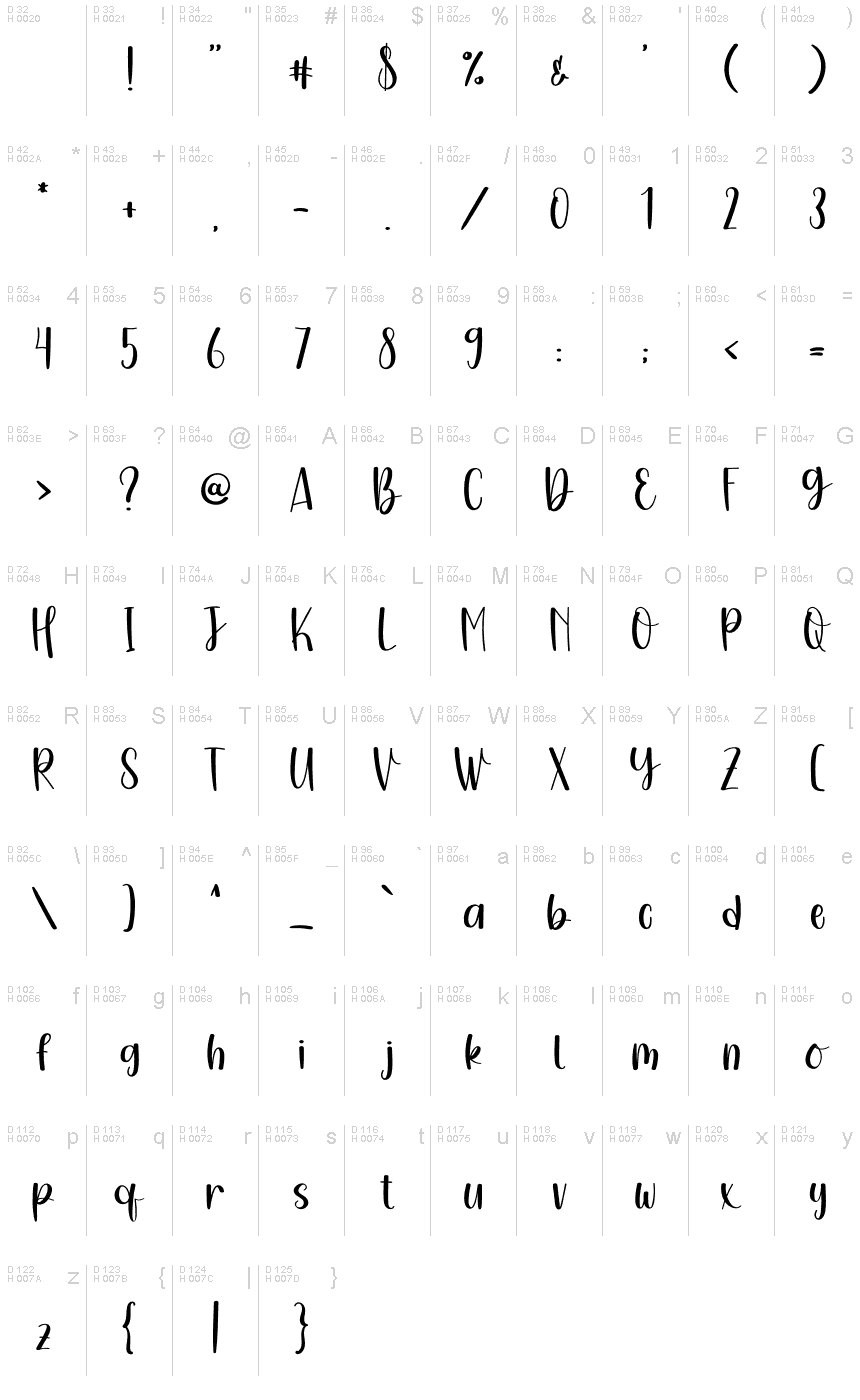
Booster
Booster, a captivating handwritten font by Erik Studio, brings a touch of personality and charm to any project. With its semi-condensed width, this font type is perfect for adding a modern yet playful vibe to your designs.
Its versatility makes it suitable for various projects such as branding materials, logo designs, social media graphics, invitations, and even children's books. Booster's unique style effortlessly adds a sense of authenticity and creativity to your visual creations.
Elevate your designs with Booster and let your imagination soar!